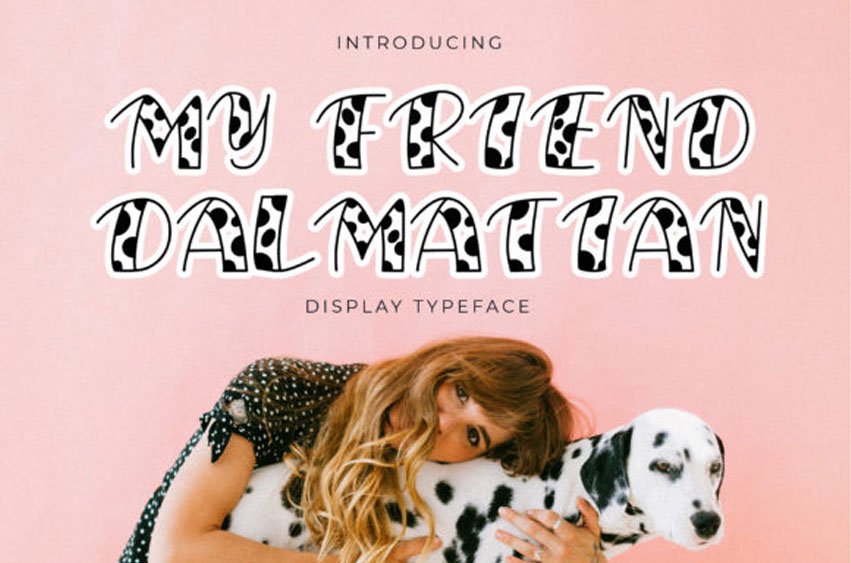
My Friend Dalmatian Font is a playful and incredibly unique display font that will make any dog and pet design stand out!
Elevate each of your designs with this amazing and original font.